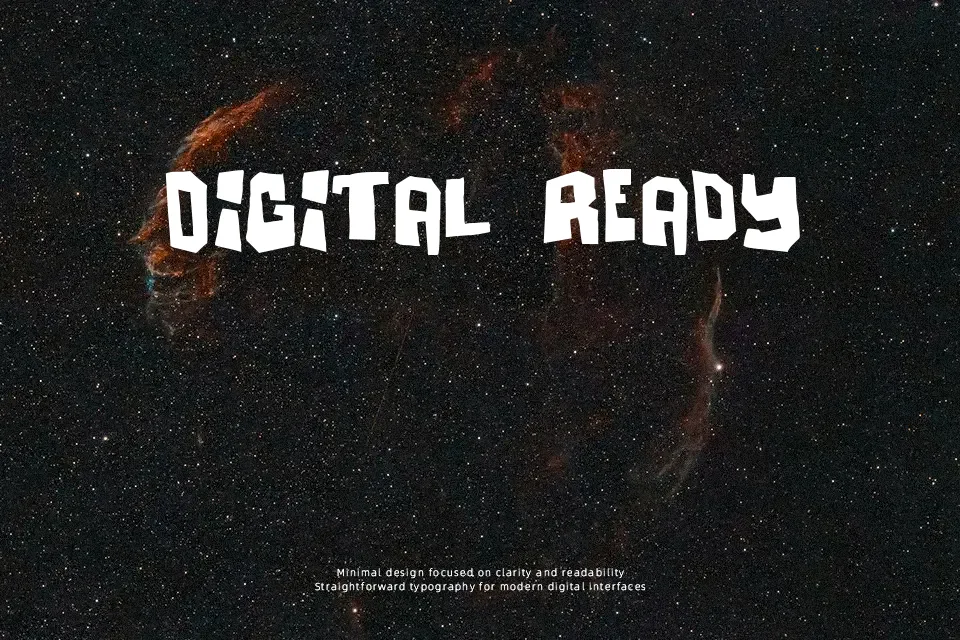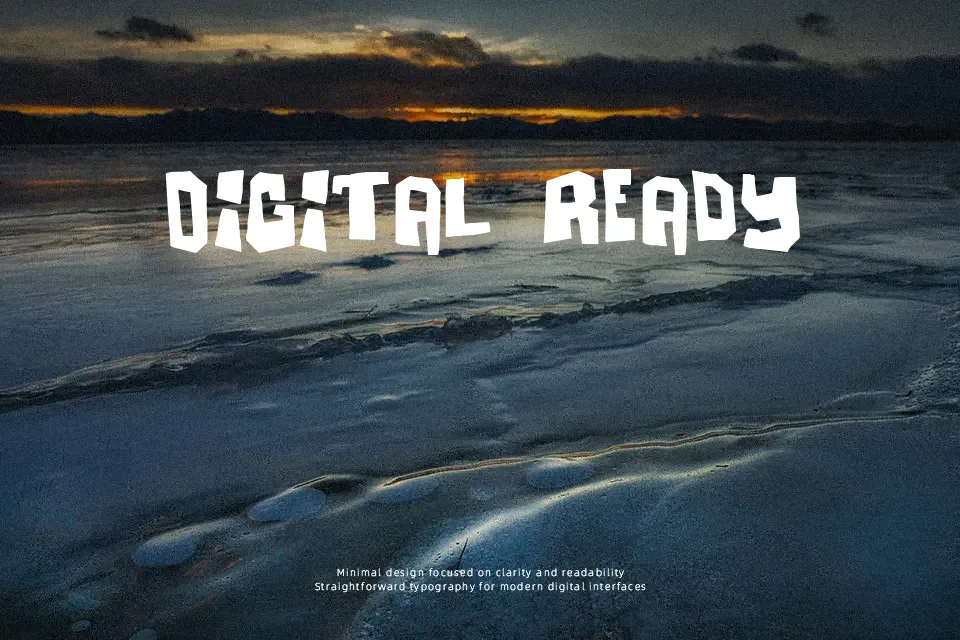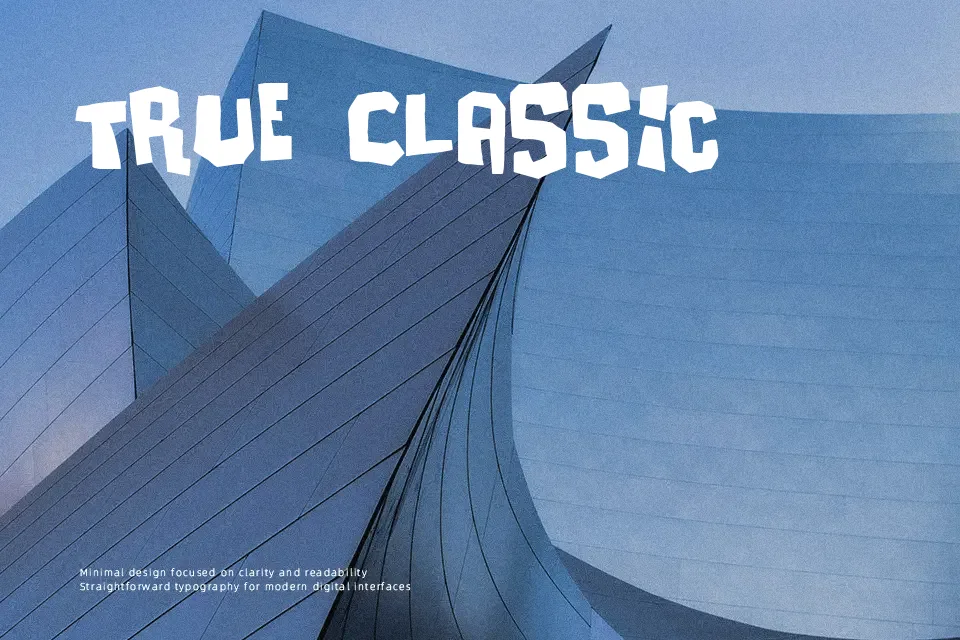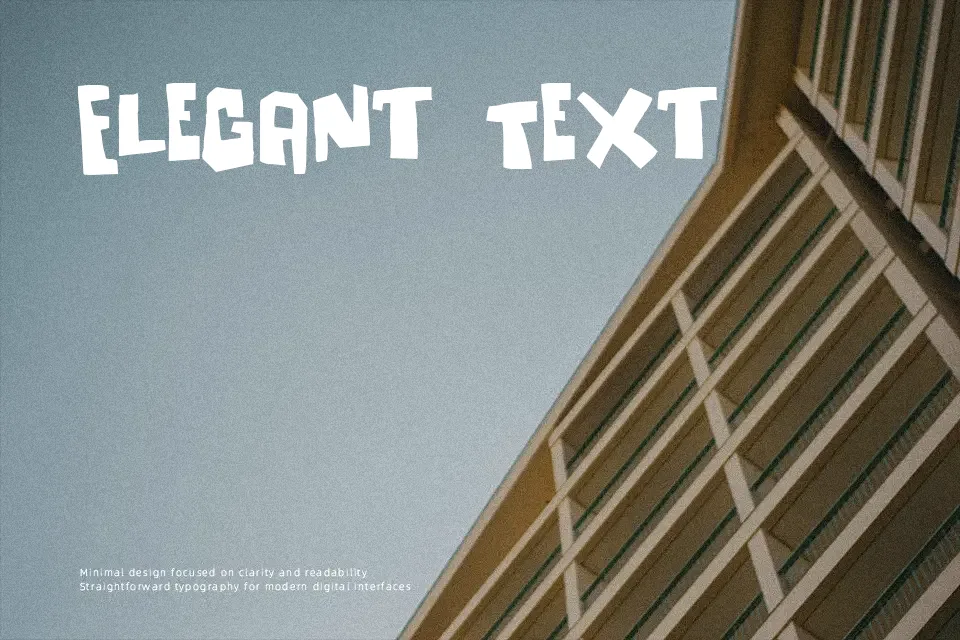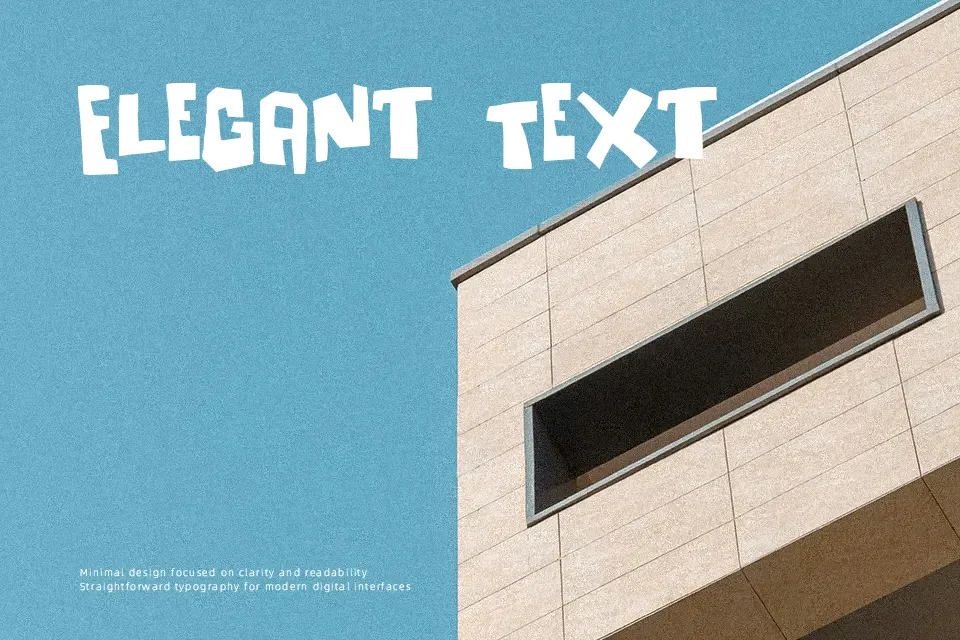
Ultimatum Font
Designed by Pizzadude
Ultimatum Font showcases irregular, punchy stroke weights paired with dynamic contours that immediately evoke comic art. The letterforms feature slightly condensed proportions and tight character spacing, generating a compact typographic rhythm suitable for graphic novels and arcade flyers. Readability remains crisp across large headlines and prominent banners where the robust silhouettes demand attention. However, the heavy weight and expressive outlines cause visual clutter at smaller display sizes, making continuous body reading uncomfortable. In practical design workflows, the typeface excels when restricted to short, punchy phrases where raw graphic energy outweighs classical text elegance.
Best For: comic book covers, animated video titles, arcade game posters, youth apparel graphics
Not Ideal For: long paragraph text, mobile UI microcopy, legal agreements, technical manuals